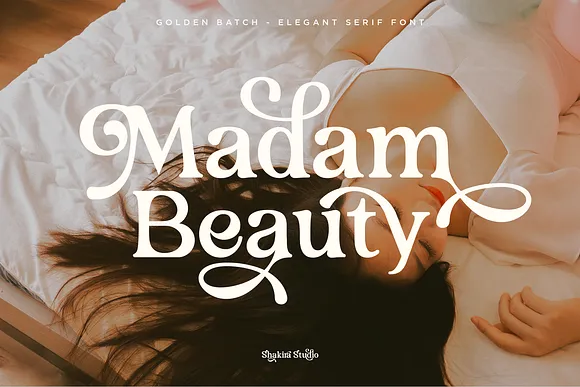
Free Golden Batch Elegant Serif Font
Golden Batch Elegant Serif Font is an Exquisite Serif Text style. Make strong, flawless titles and exquisite plans with a classic pizazz. George’s differentiating lines and bended terminals give a smooth, rich shift focus over to logos, occasion cards, wedding solicitations, statements, commercials, and that’s just the beginning.
Golden Batch Elegant Serif Font has full arrangement of present day capitalized and lowercase letters, numerals, accentuation, likewise multilingual images.